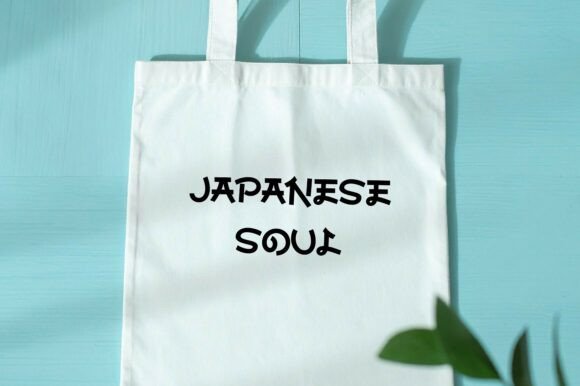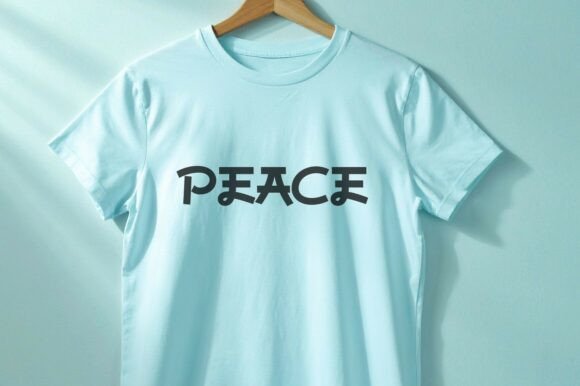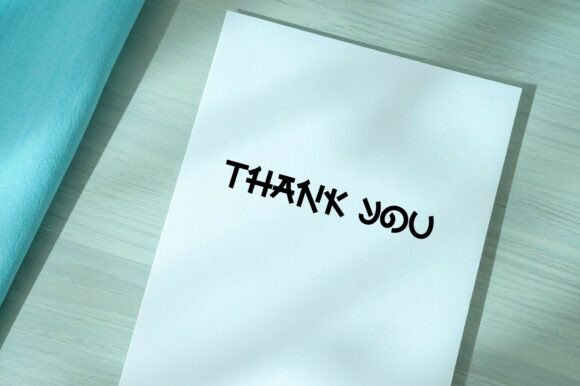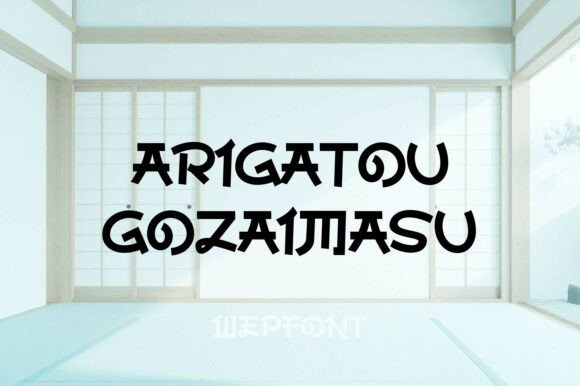
Discover the Elegance of Arigatou Gozaimasu Font
Arigatou Gozaimasu is a distinctive display font that seamlessly blends modern design principles with the traditional elegance of Japanese calligraphy. This unique font is perfect for designers and crafters looking to add a touch of cultural sophistication and serene elegance to their projects.
A Unique Blend of Modern and Traditional
Arigatou Gozaimasu features strong, block-like letterforms with subtle, stylized flourishes that evoke the brushstrokes of Japanese characters. This harmonious blend of strength and grace gives the font a unique, exotic appeal that is both balanced and visually striking. The bold presence of the font is softened by thoughtful details, creating a sense of elegance and refinement.
Comprehensive Character Set
Arigatou Gozaimasu includes a comprehensive set of uppercase letters, numerals, and essential punctuation, all carefully designed to maintain its cultural essence and readability. This extensive character set makes it an excellent choice for a wide range of design projects, from branding and advertising to packaging and editorial design.
Ideal for Projects Requiring Cultural Sophistication
Arigatou Gozaimasu is ideally suited for projects that seek to convey a sense of global sophistication, cultural appreciation, or a serene, minimalist elegance. Its unique blend of modern and traditional design elements makes it an excellent choice for:
- Japanese cuisine branding and advertising
- Cultural events and festivals
- Travel and tourism marketing materials
- Wellness and lifestyle branding
- Any design aiming for a distinctive, peaceful, and respectful tone
Design and Crafting Applications
Arigatou Gozaimasu is an excellent addition to any designer’s or crafter’s toolkit. Its unique blend of modern and traditional design elements makes it perfect for a wide range of applications, including:
- Logo design and branding
- Signage and display design
- Editorial design and publishing
- Digital design and marketing materials
Using Arigatou Gozaimasu in Your Designs
Arigatou Gozaimasu is easy to use and integrate into your designs. Whether you’re working on a prominent title or a subtle label, this font is sure to make a statement. Here are a few examples of how you can use Arigatou Gozaimasu in your designs:
- Create a stunning title for your Japanese restaurant or cultural event with the font’s bold, block-like letterforms.
- Add a touch of elegance to your packaging design with Arigatou Gozaimasu’s subtle, stylized flourishes.
- Use the font’s comprehensive character set to create a unique and eye-catching logo for your travel or wellness brand.
Arigatou Gozaimasu is a unique and versatile display font that is sure to elevate your designs to the next level. Its blend of modern and traditional design elements makes it an excellent choice for designers and crafters looking to add a touch of cultural sophistication and serene elegance to their projects. With its comprehensive character set and ease of use, Arigatou Gozaimasu is an excellent addition to any designer’s or crafter’s toolkit.
- Distinctive display font with modern and traditional Japanese calligraphic influences
- Strong, block-like letterforms with subtle, stylized flourishes
- Comprehensive set of uppercase letters, numerals, and essential punctuation
- Ideal for projects requiring cultural sophistication and serene elegance
- Perfect for branding, advertising, packaging, and editorial design